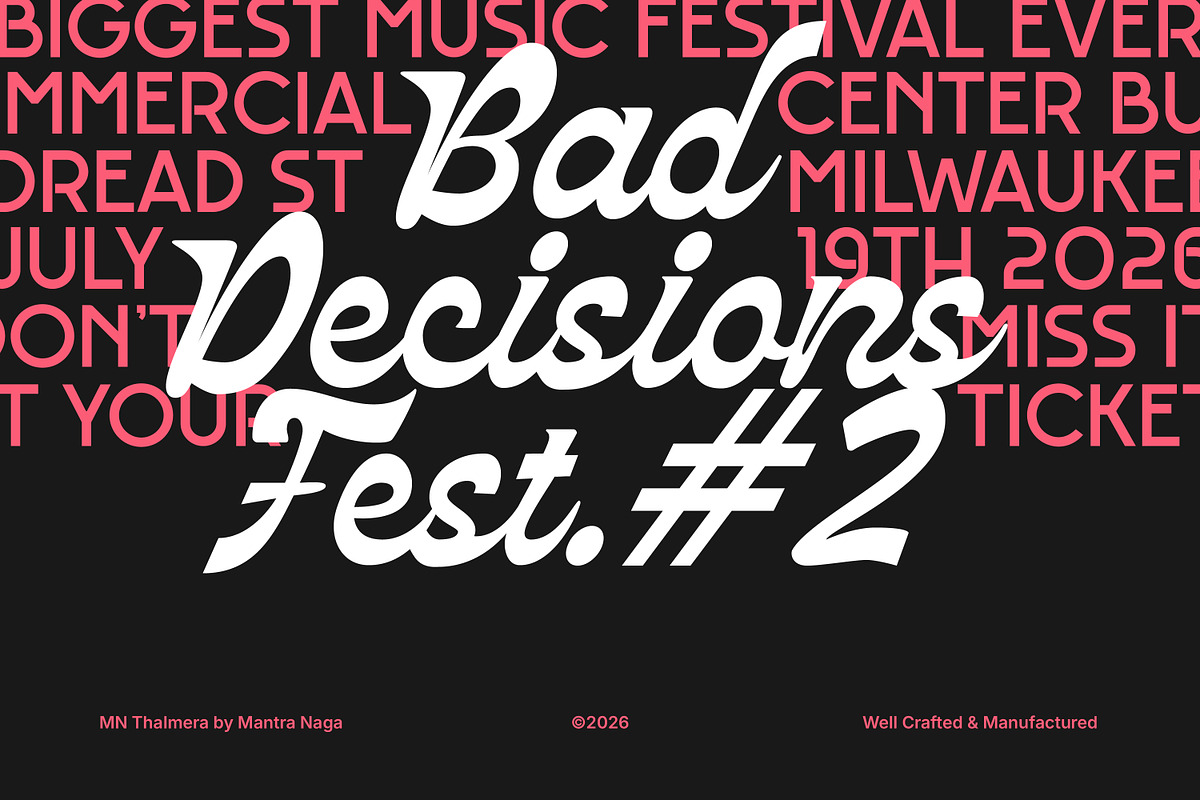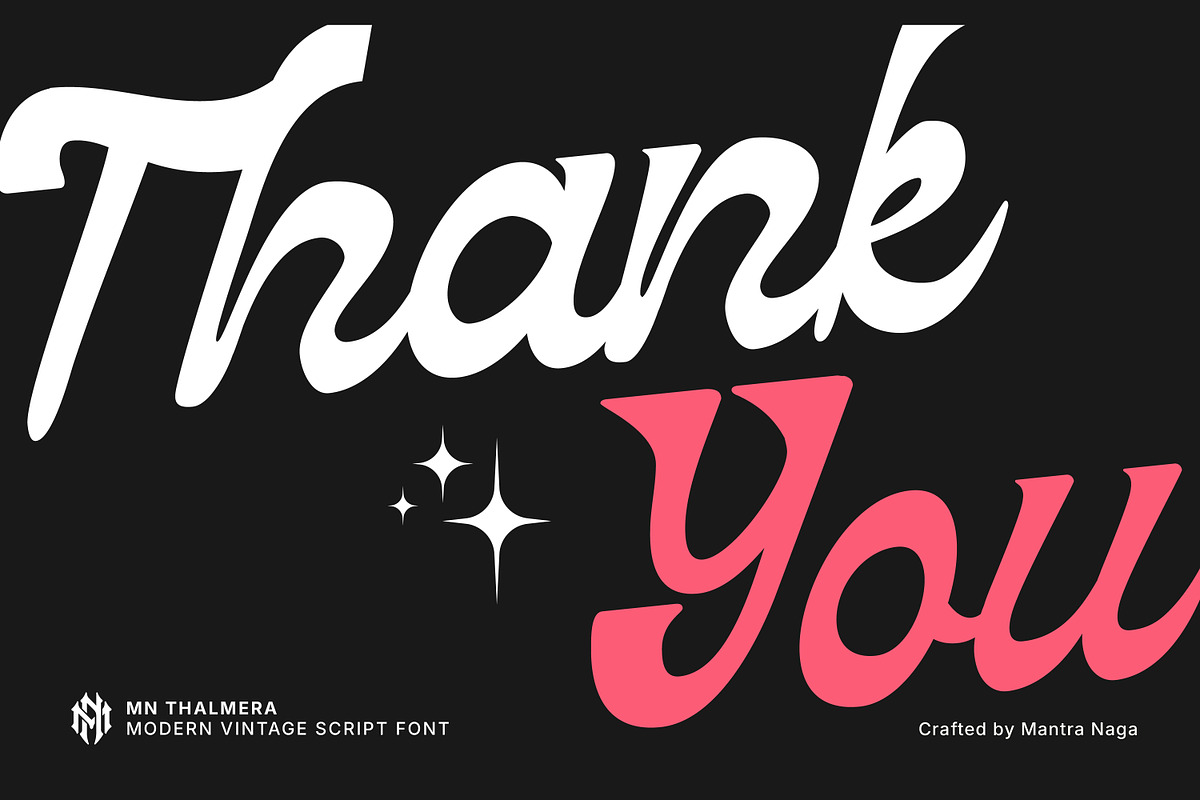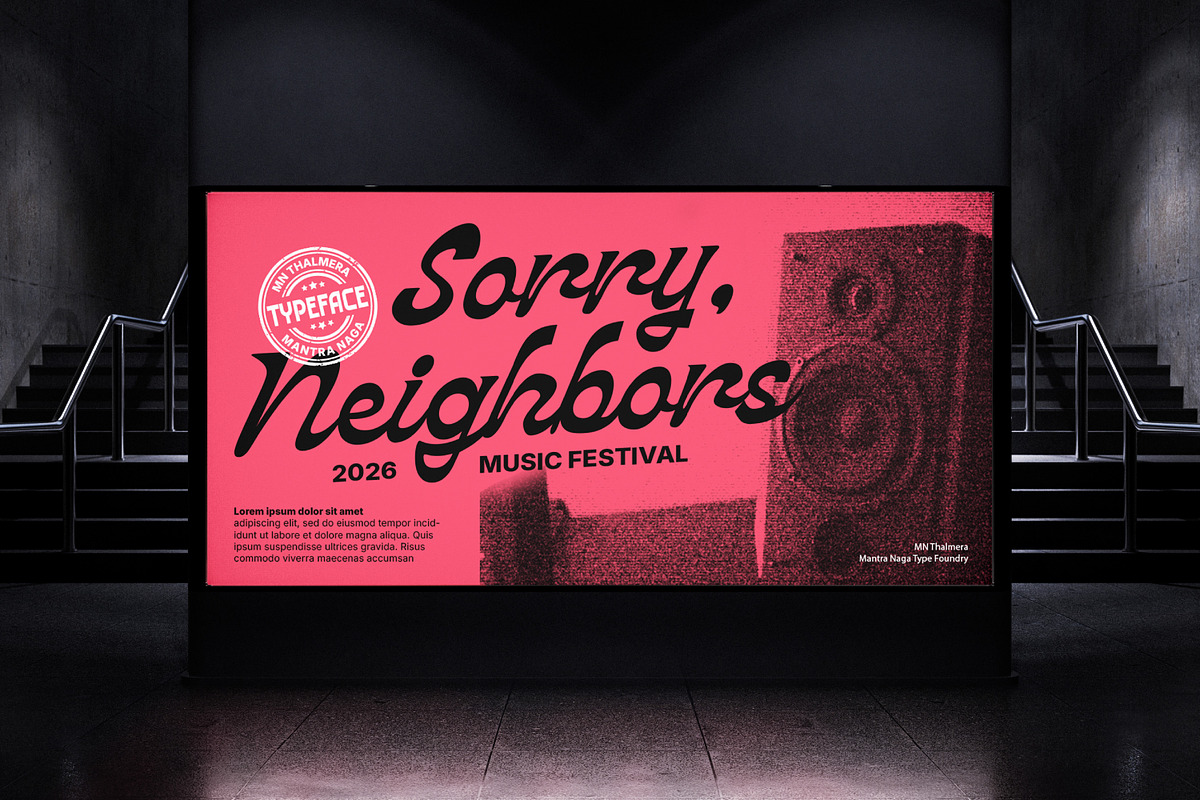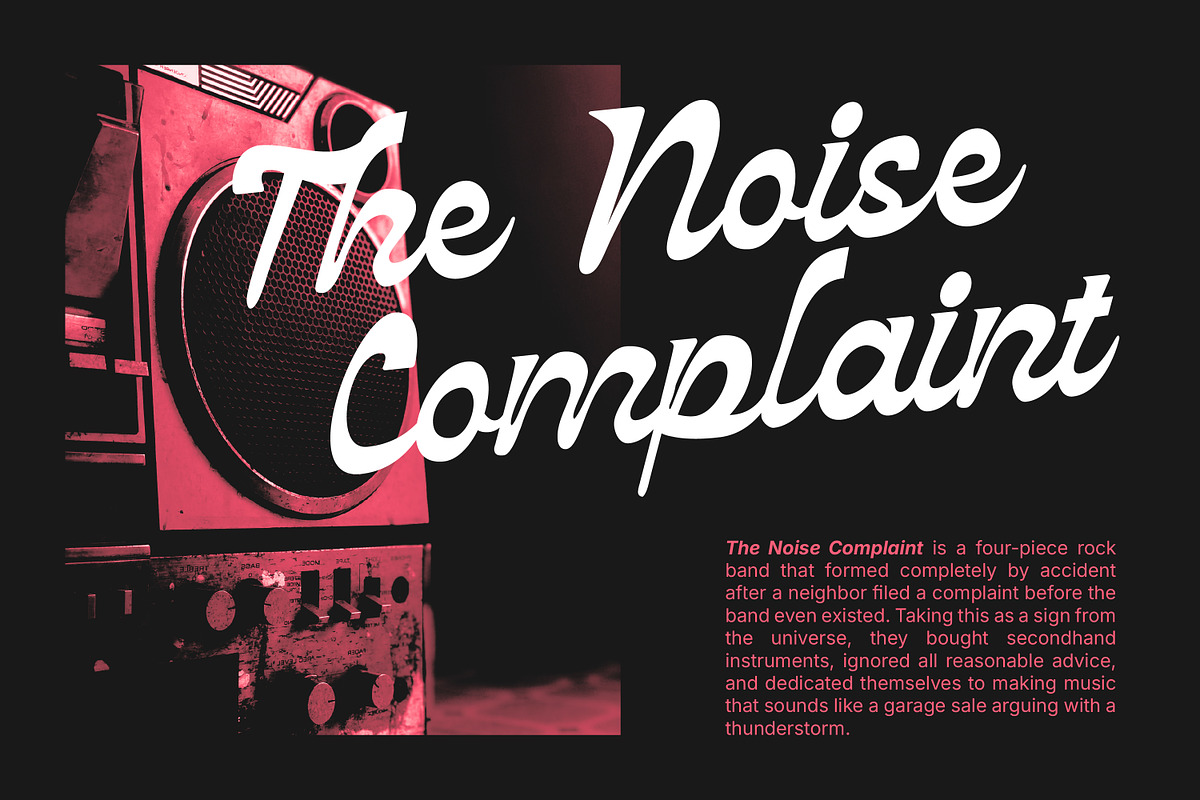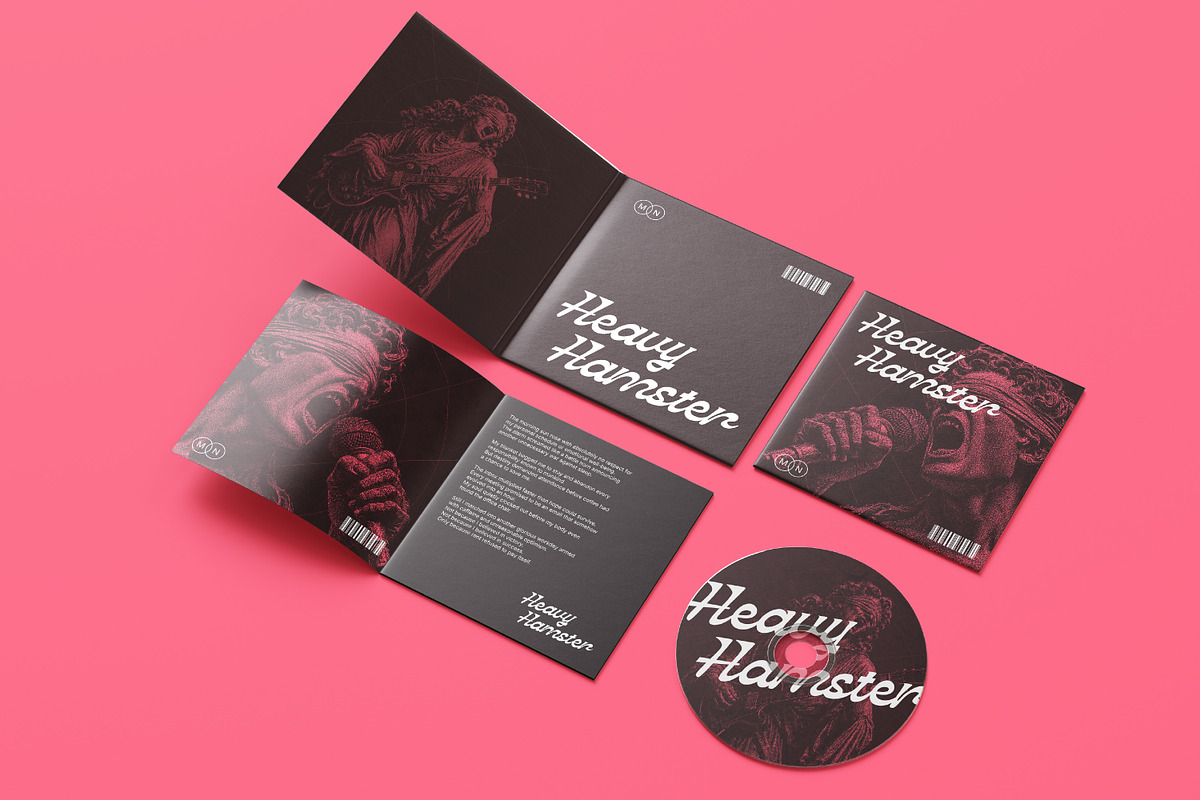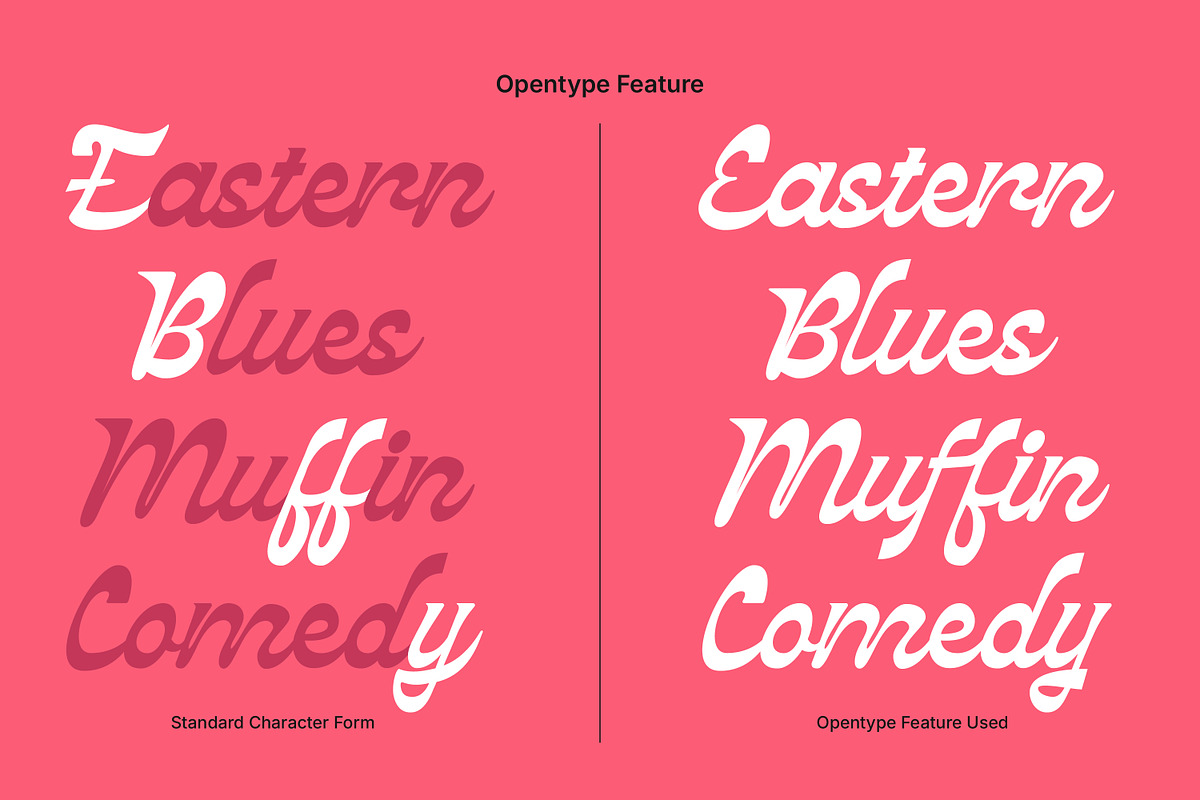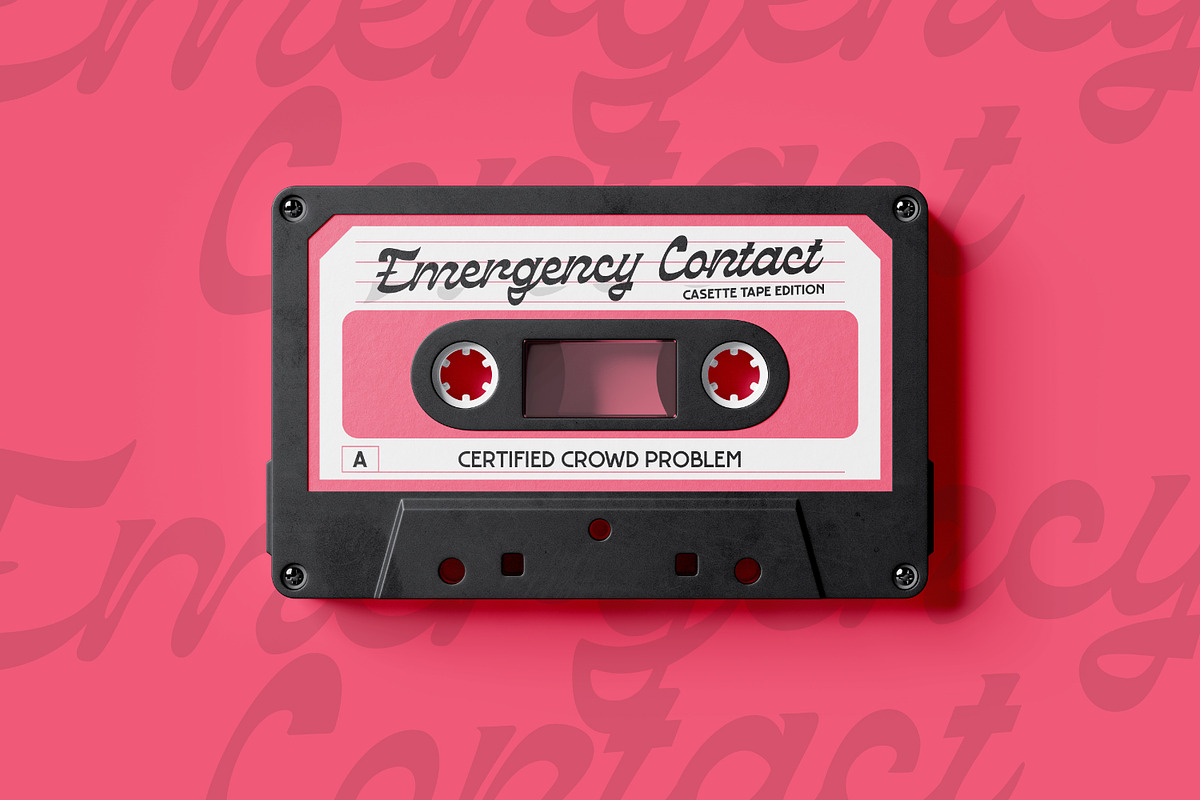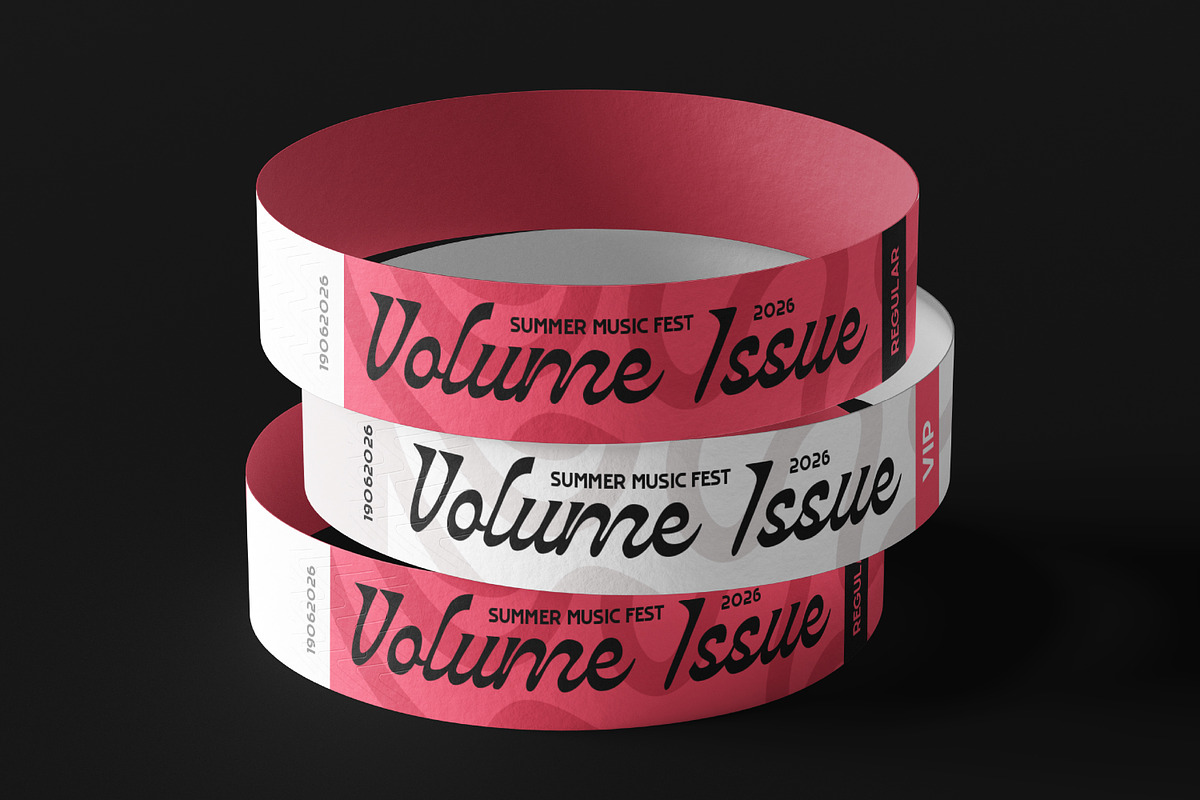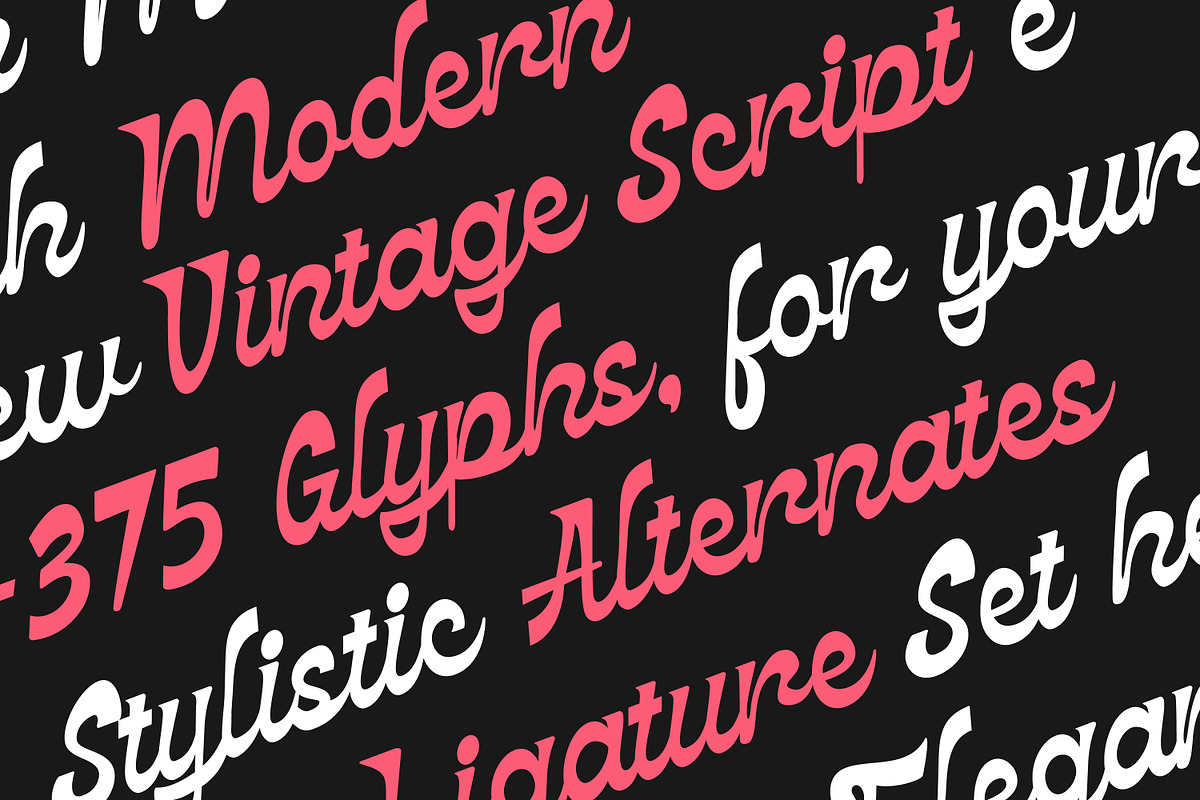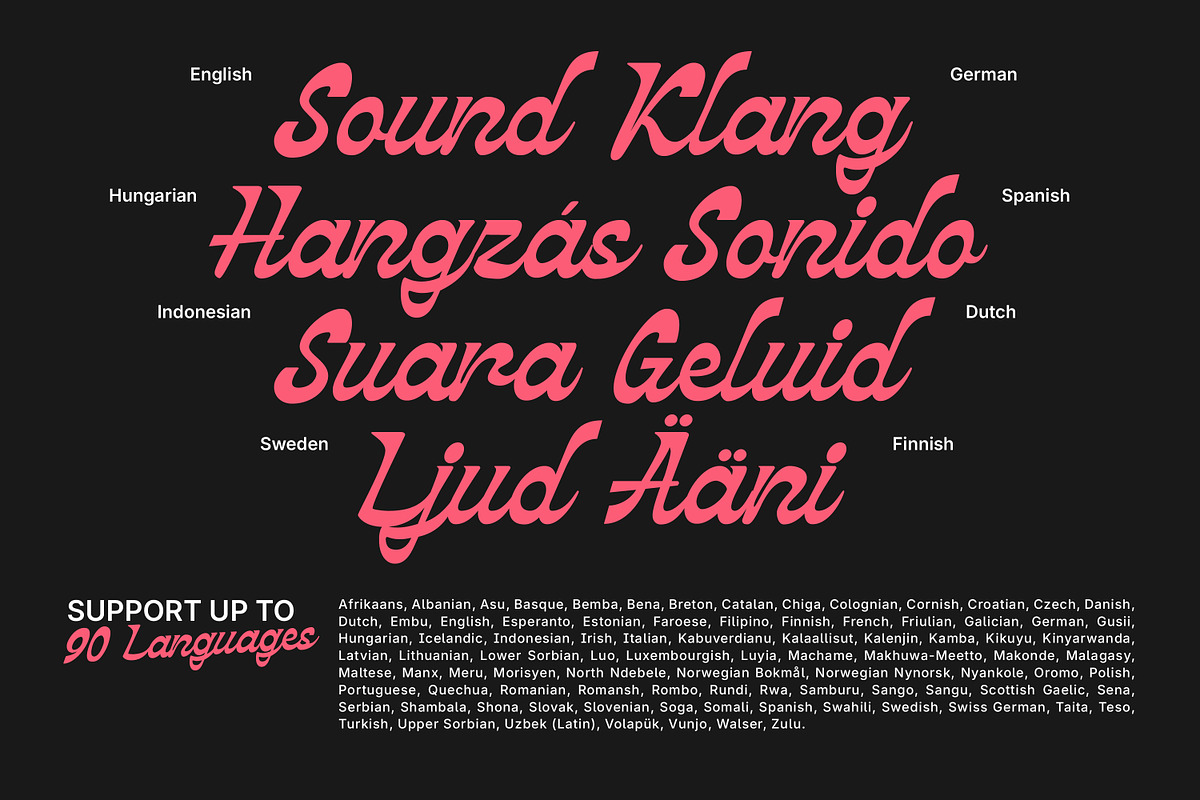
MN Thalmera - Vintage Script Serif
MN Thalmera
Elegant. Expressive. Unapologetically Bold.
Not every typeface can carry the weight of a visual identity. MN Thalmera was designed for the ones that need to.
A script serif font built for display, MN Thalmera combines classical structure with expressive artistry, flowing letterforms, refined serif details, and curved stroke endings that feel both elegant and commanding. Alternate capitals and lowercase glyphs give every wordmark, album title, and headline a character that is entirely its own.
Designed for music artists, labels, and creative brands, MN Thalmera is the script serif font for album cover design, merch graphics, fashion and beauty branding, editorial headlines, and premium logo design that refuses to look generic.
Not for body text. Built for display, impact, and the kind of visual branding people remember.